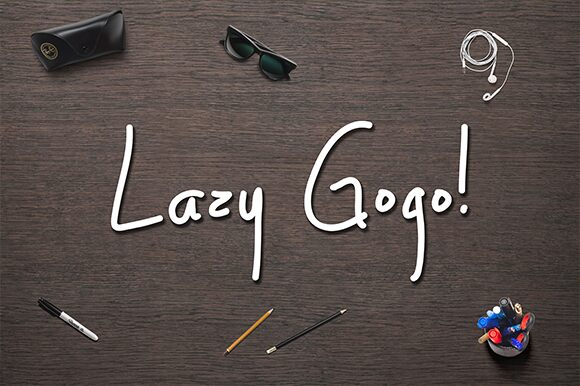
LazyGogo
Introducing my new cute and beautiful marker handwritten font. It will nice to make your design cute and playful style.
Contain 275 glyphs and supported to basic Latin character and eastern Europe language.